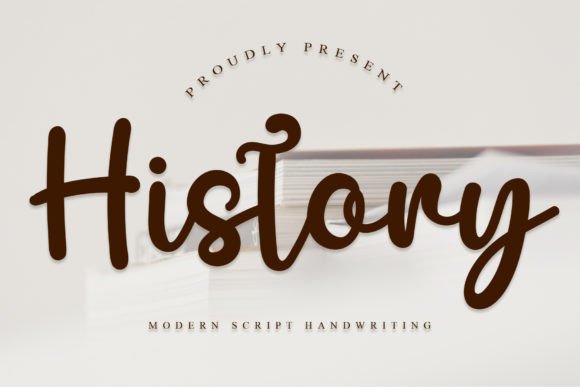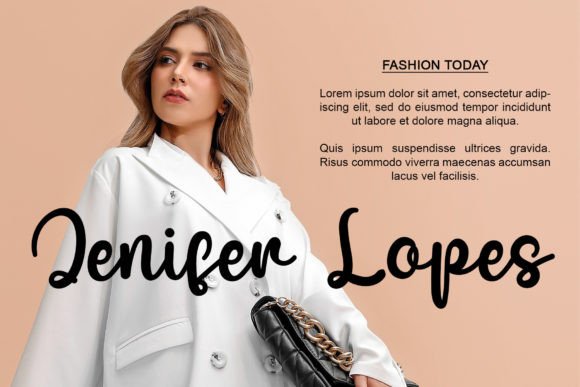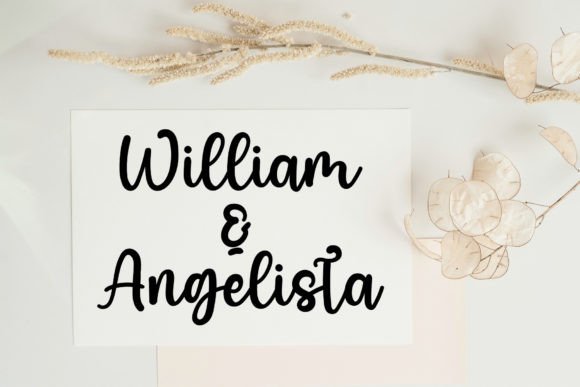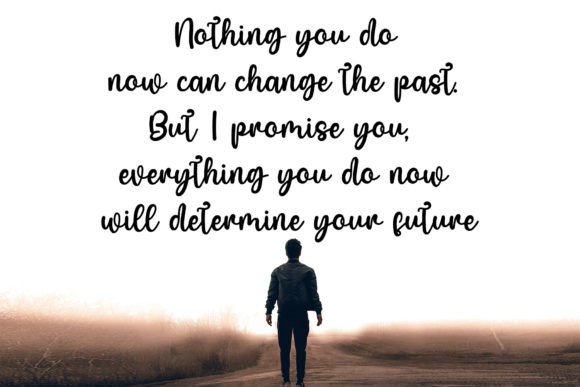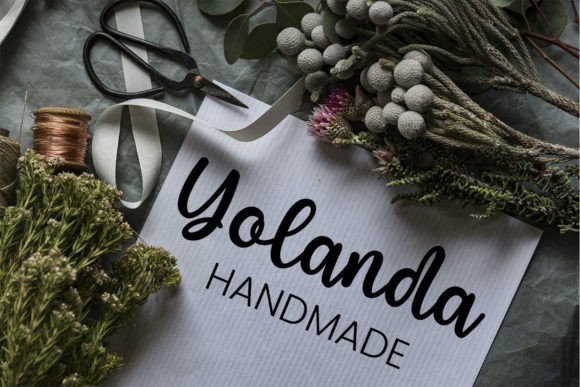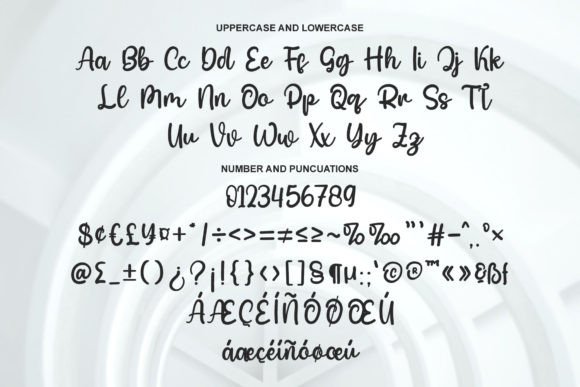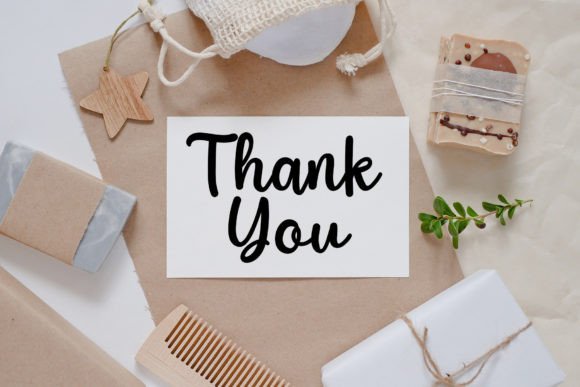
History Font
About History Font
“History” is an exquisite and well-crafted handwritten font that exudes neatness and beauty. With its elegant touch and distinct style, this font is a perfect choice for your favorite projects. Whether you’re working on branding, print materials, digital designs, or any creative endeavor, “History” is sure to capture your heart with its timeless charm and versatility.
The allure of “History” lies in its ability to convey a sense of elegance and sophistication. The font’s neat and beautifully designed characters create a refined and inviting aesthetic that can enhance a wide array of design projects.
One of the standout features of “History” is its adaptability. It can seamlessly adapt to various design themes and moods, making it suitable for both formal and creative applications. Whether you want to achieve a classic and timeless look or add a touch of contemporary elegance, “History” is a font that can deliver.
When you incorporate “History” into your designs, you can expect your projects to exude a sense of distinction and beauty. This font has the power to create a memorable and engaging visual experience for your audience, whether you’re designing for print or digital media.
In summary, “History” is not just a font; it’s a design asset that can elevate your creative projects with its neat and beautiful elegance. Its timeless style and adaptability make it a valuable addition to your design toolkit. Feel confident in using “History” to create spectacular designs that leave a lasting impression!